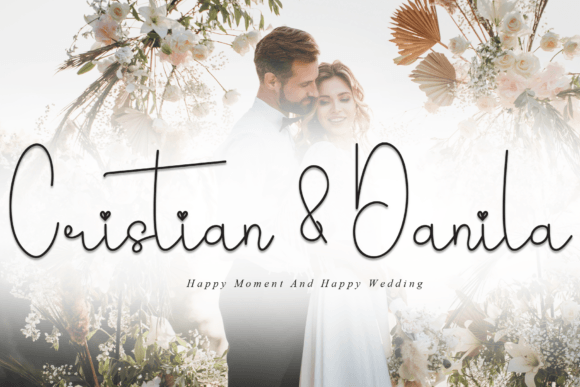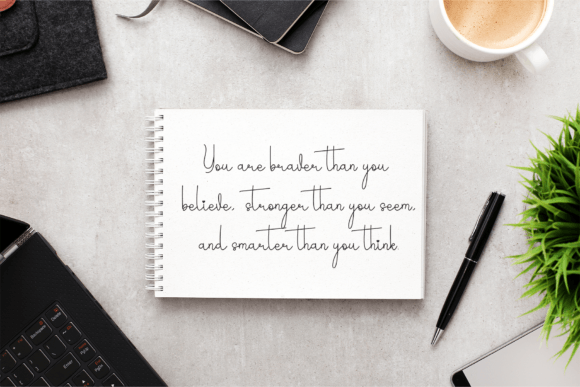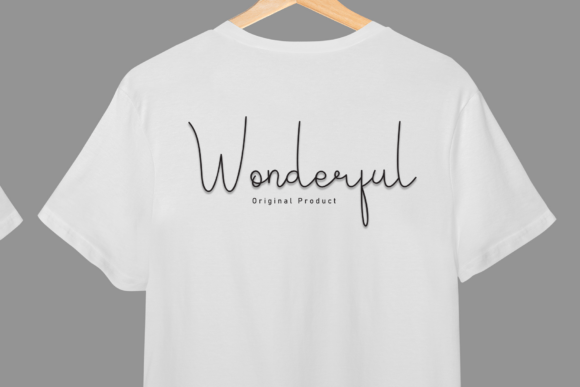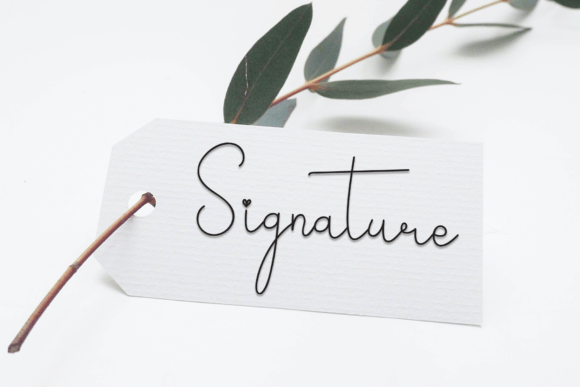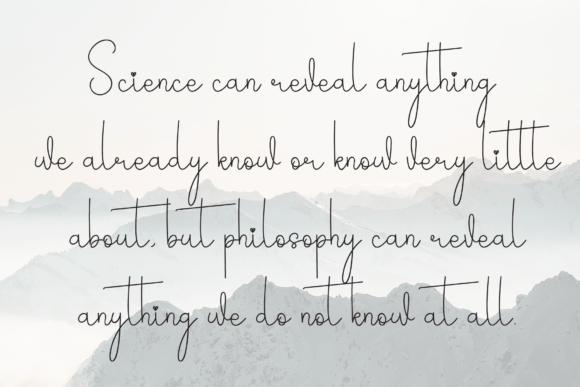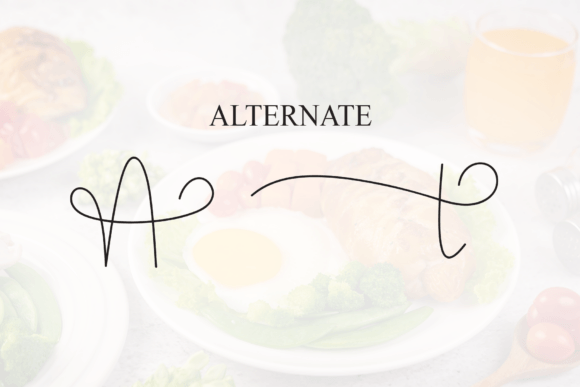
Introducing American Breakfast Font: A Charming Handwritten Display Font
Are you looking for a font that can add a touch of warmth and personality to your designs? Look no further than the American Breakfast Font, a delightful handwritten display font that is sure to capture the hearts of designers and crafters alike. With its sweet and friendly demeanor, this font is perfect for creating heartwarming wedding invitations, thoughtful cards, and other designs that require a dash of fun and whimsy.
A Font that Embodies Sweetness and Friendliness
The American Breakfast Font is a charming and approachable font that is designed to bring an endearing touch to each design it graces. Its distinct character and whimsical feel make it an essential addition to any creative toolkit. Whether you’re a designer, crafter, or DIY enthusiast, this font is sure to inspire you to create something truly special.
The American Breakfast Font is a versatile font that can be used for a wide range of design projects. Its friendly and approachable feel makes it perfect for:
- Wedding invitations and announcements
- Birthday cards and party invitations
- Holiday greetings and decorations
What Sets American Breakfast Font Apart
So, what sets the American Breakfast Font apart from other fonts? Here are just a few features that make it a standout:
- Unique character: Each letter in the American Breakfast Font has its own unique character and personality, making it perfect for designs that require a personal touch.
- Whimsical feel: The font’s whimsical feel makes it perfect for designs that require a dash of fun and playfulness.
- Easy to read: Despite its playful feel, the American Breakfast Font is easy to read and understand, making it perfect for designs that require a clear and concise message.
Tips for Using American Breakfast Font
Here are a few tips for using the American Breakfast Font in your designs:
- Use it as a display font: The American Breakfast Font is perfect for use as a display font, where it can be used to grab attention and add personality to your design.
- Pair it with other fonts: The American Breakfast Font can be paired with other fonts to create a unique and interesting contrast.
- Experiment with colors and textures: The American Breakfast Font looks great in a variety of colors and textures, so don’t be afraid to experiment and find the perfect combination for your design.